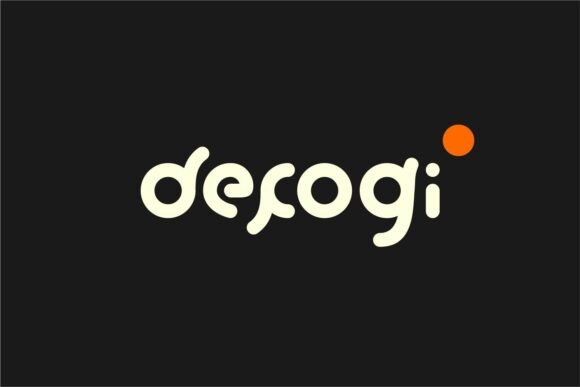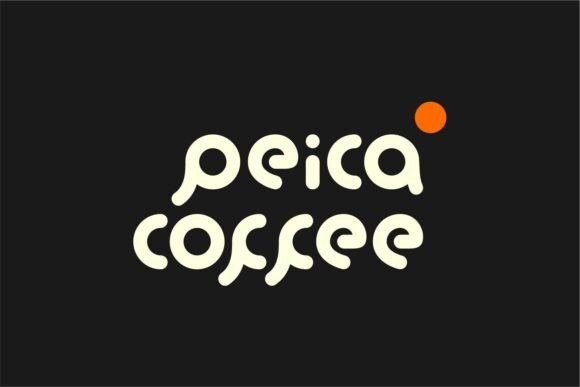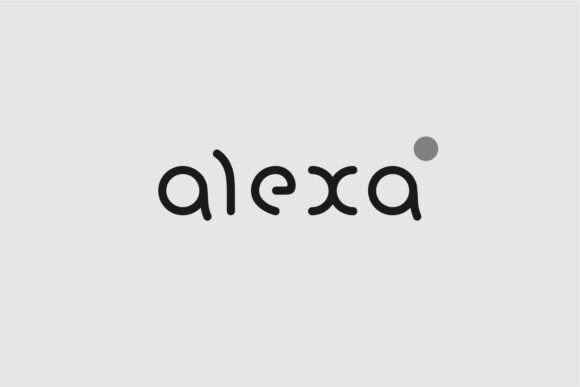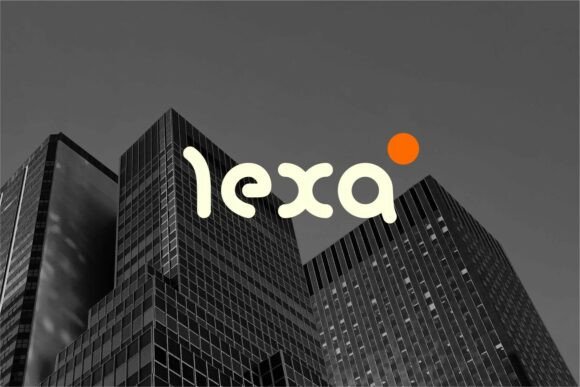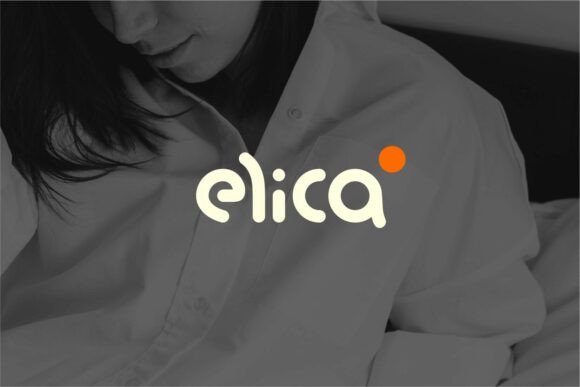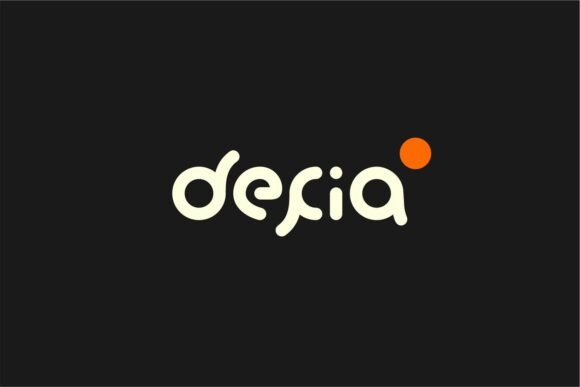
Gecola Font: The Ultimate Choice for Modern Designers
In the world of typography, fonts play a crucial role in making or breaking a design. With the ever-evolving design landscape, it’s essential to stay ahead of the curve with the latest and greatest fonts. One such font that’s been making waves in the design community is Gecola. This modern font has taken the world by storm, becoming a market favorite among millennials and Gen Z. In this article, we’ll dive into the world of Gecola Font, exploring its features, benefits, and uses.
What is Gecola Font?
Gecola Font is a modern, stylish, and cool font designed specifically for the younger generation. Its sleek and contemporary design makes it perfect for a wide range of projects, from logos and branding to fashion and labels. With its clean lines, elegant curves, and sophisticated feel, Gecola has become the go-to font for designers looking to create a lasting impression.
Key Features of Gecola Font
So, what makes Gecola Font so special? Here are some of its key features:
- Modern Style: Gecola Font boasts a modern style that’s perfect for today’s design landscape. Its sleek and contemporary design ensures that your projects look fresh and up-to-date.
- Cool and Classy: Gecola Font is not just modern; it’s also cool and classy. Its elegant curves and clean lines make it perfect for high-end branding and fashion projects.
- Easy to Use: Gecola Font is incredibly easy to use, making it accessible to designers of all skill levels. Whether you’re a seasoned pro or just starting out, Gecola Font is a breeze to work with.
- Versatile: Gecola Font is incredibly versatile, making it suitable for a wide range of projects, from logos and branding to labels and fashion.
Benefits of Using Gecola Font
So, why should you choose Gecola Font for your next project? Here are some benefits of using Gecola Font:
- Stand Out from the Crowd: With Gecola Font, you can create designs that stand out from the crowd. Its modern style and cool aesthetic ensure that your projects look fresh and unique.
- Enhance Your Brand: Gecola Font is perfect for branding and logos. Its elegant curves and sophisticated feel make it ideal for creating a lasting impression.
- Save Time: With Gecola Font, you can save time and effort. Its easy-to-use design and versatility make it a breeze to work with, allowing you to focus on other aspects of your project.
Who Can Use Gecola Font?
Gecola Font is perfect for a wide range of designers and crafters, including:
- Graphic Designers: Gecola Font is a must-have for graphic designers looking to create modern and stylish designs.
- Fashion Designers: With its elegant curves and sophisticated feel, Gecola Font is perfect for fashion designers looking to create high-end branding and labels.
- Startups and Small Businesses: Gecola Font is ideal for startups and small businesses looking to create a lasting impression with their branding and logos.
In conclusion, Gecola Font is a game-changer for designers and crafters. Its modern style, cool aesthetic, and ease of use make it the perfect choice for a wide range of projects. Whether you’re a graphic designer, fashion designer, or startup owner, Gecola Font is sure to take your designs to the next level. So why wait? Download Gecola Font today and experience the power of modern typography.